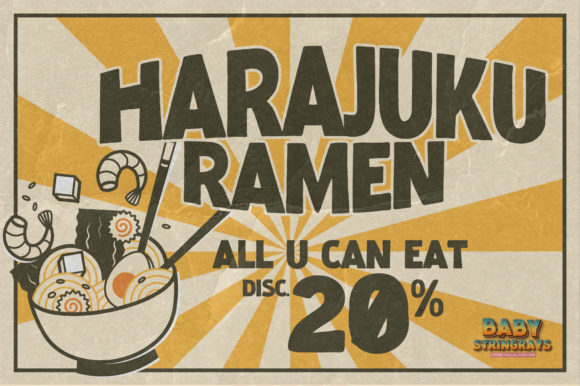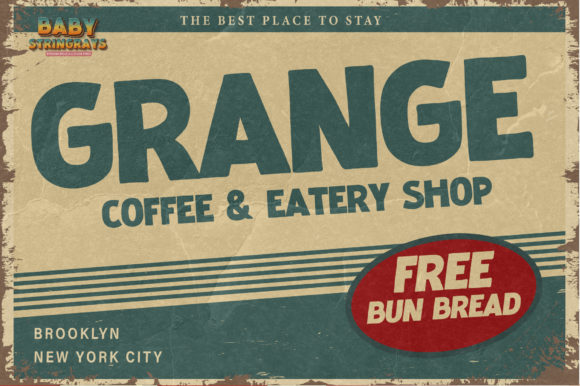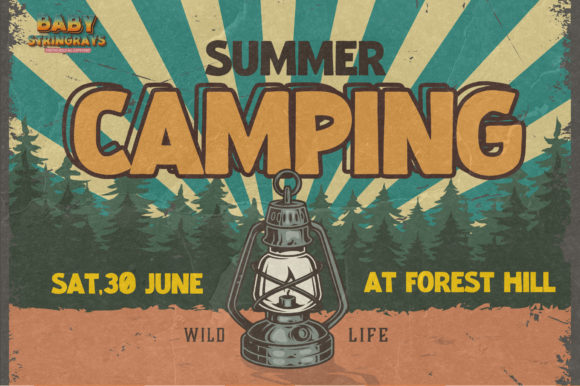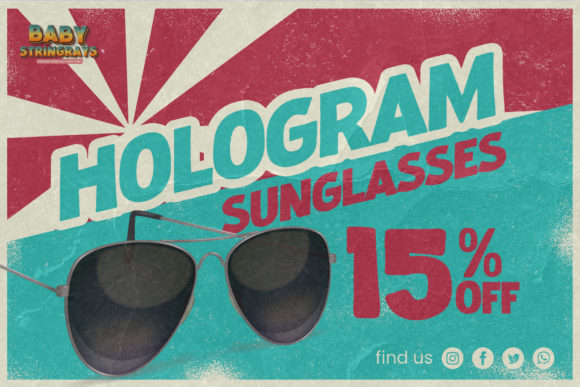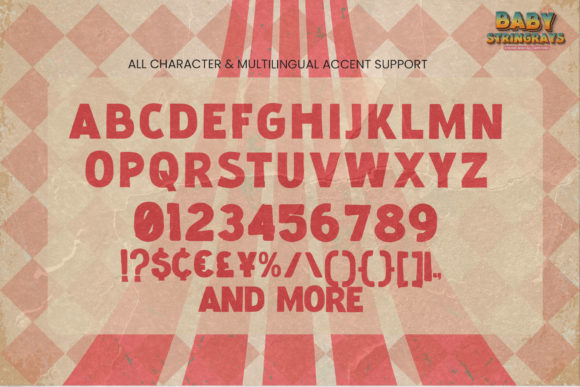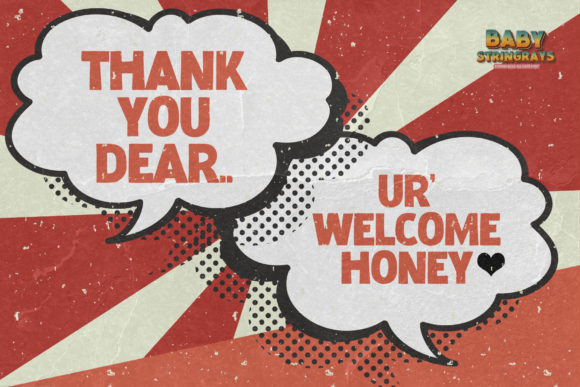
The Ultimate Font for the Modern Creator
Have you ever sat down at your desk, surrounded by blank sheets of paper, a blank computer screen, and a million ideas swirling in your head? You’re about to start a new project, and you want it to be perfect. That’s where the magic happens, and creativity takes over. For designers and crafty folks alike, finding the right font can make all the difference between a good project and a great one.
Enter Baby Stringrays Font, a bold, all caps display font that’s sure to make your creations stand out. With its perfect blend of trendiness and style, this font is perfect for crafting, digital designing, presentations, or even greeting cards. Whether you’re a seasoned pro or a DIY enthusiast, Baby Stringrays Font is the ultimate addition to your design toolkit.
Baby Stringrays Font Key Features
- Font Family: Baby Stringrays Font
- Unique Characteristic: The font features a playful, hand-drawn design with stringray-inspired elements, perfect for children’s books, educational materials, and creative projects
- Font Styles: Includes regular, italic, bold, and bold italic styles for added versatility
Designer Review: Baby Stringrays Font
First off, I have to say that I was initially drawn to the whimsical, playful vibe of Baby Stringrays Font ✨. The designer has done a great job of capturing a sense of youthful energy and curiosity in this font. The rounded shapes and soft lines give it a friendly, approachable feel that’s perfect for kids’ products, education, or family brands.
- Unique and playful style that’s perfect for kids’ products or education
- Soft, rounded shapes that are easy on the eyes
- Good for body text, but could be a bit too whimsical for headings
However, there are some limitations to consider ⚠️. The font is not as versatile as some other options, and it may not be suitable for all types of projects. Additionally, the character set could be more comprehensive, which might limit its use in certain contexts.
Overall, I think Baby Stringrays Font is a great choice for projects that need a playful, youthful feel. While it may not be the best option for every project, it’s definitely worth considering for the right use case.
Getting the Most Out of the Font
Use the Baby Stringrays Font for designs that require a playful, whimsical feel. This font is perfect for:
Children’s party invitations, birthday cards, and other kid-friendly designs.
Wedding invitations, stationery, and other romantic designs.
Use the font in combination with bright colors and playful graphics to create eye-catching designs.
Alternatives to Baby Stringrays Font
Carter Script
Carter Script is a beautiful, elegant script font ideal for wedding invitations, branding, and other high-end designs. It features connected letters, subtle flair, and a classic feel. Carter Script is more versatile than Baby Stringrays Font, which has a more limited use case in modern and minimalist designs.
Great Vibes is a modern script font perfect for creative, artistic, and inspirational projects. It has a more relaxed feel than Baby Stringrays Font and is suitable for posters, quotes, and social media graphics. Great Vibes is more playful and has a wider range of styles and ligatures.
Carolyna Pro is a high-end, elegant script font ideal for luxury brands, fine art, and high-end designs. It features intricate details, connected letters, and a classic feel. Carolyna Pro is more sophisticated than Baby Stringrays Font and is suitable for projects that require a touch of luxury and sophistication.
Literata
Literata is a beautiful, elegant script font perfect for high-end designs, branding, and creative projects. It features connected letters, subtle flair, and a classic feel. Literata is more refined than Baby Stringrays Font and is suitable for projects that require a touch of sophistication and elegance.